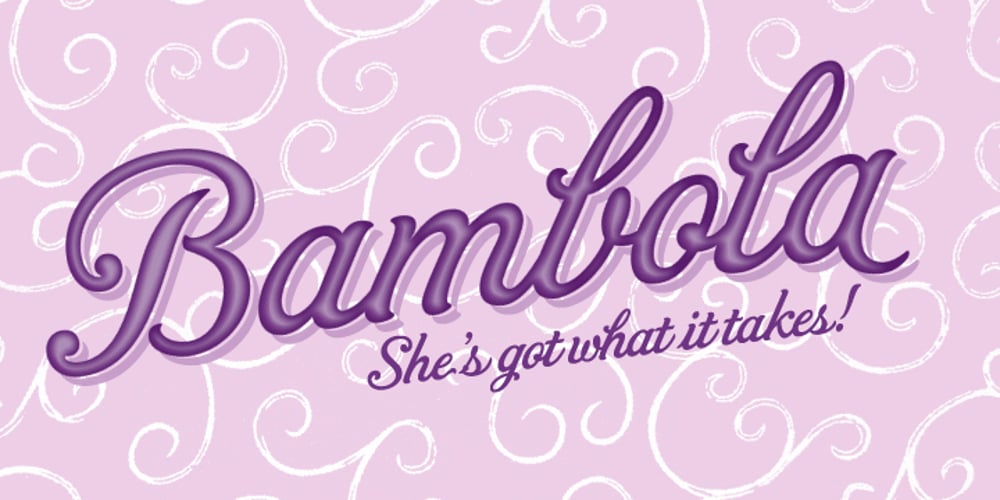
Bambola Font Family was designed by published by EdyType. Bambola contains 1 styles and family package options. BAMBOLA, Script put out by EdyType. Almost formal script, that gained a little weight. but she is taking care of that. BAMBOLA, a real doll, wants to be loved, she is trying hard to be popular. Is very conscious of her beauty, but trying not to be a show off. She’ll be at ease in any place where normal faces gather, unpretentious, yet with a touch of class. Born to be readable, it’s ideal for packaging headlines and editorial work. Not thick, nor thin, just the exact weight, makes a good pattern at large texts, and reduces with no problems, her voluptuous initials makes it stand out always. A real romantic face, it belongs to the fashion world, where she’s come from. A real hip chick, she’s got what it takes!